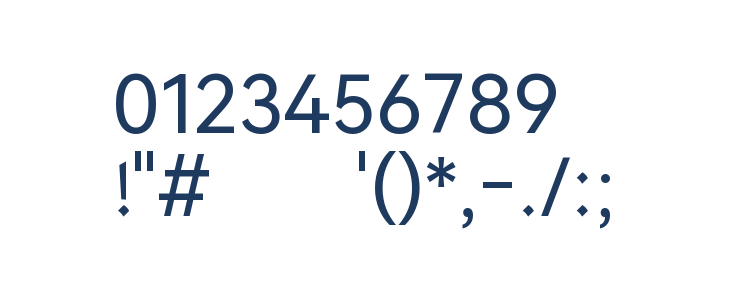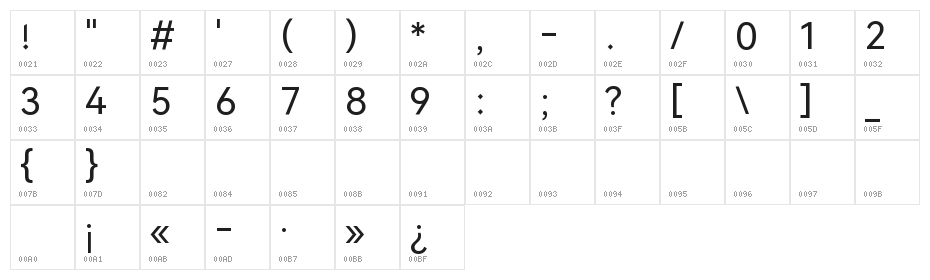
HarmonyOS Sans Naskh Arabic Font
HarmonyOS Sans Naskh Arabic Description
This font features a clean and modern sans-serif design, characterized by its smooth curves and balanced proportions. The characters are evenly spaced, providing excellent readability across various sizes. The numerals are distinct and clear, making them suitable for both digital and print media. Special characters are designed with simplicity in mind, maintaining the overall aesthetic of the font. The style is versatile, making it suitable for a wide range of applications from user interfaces to branding.